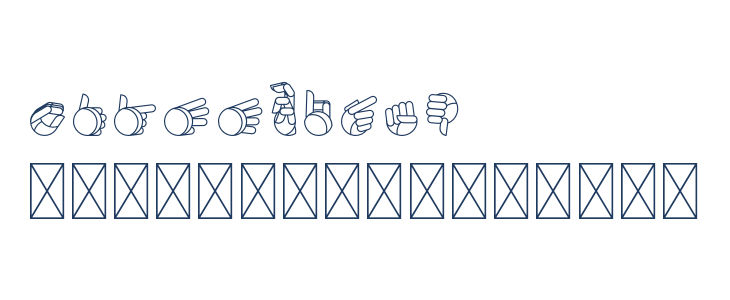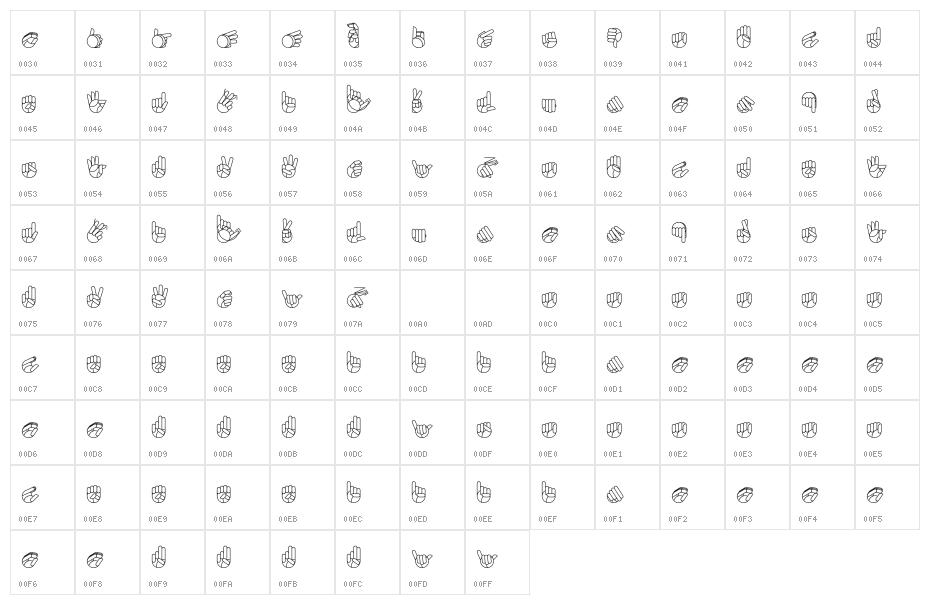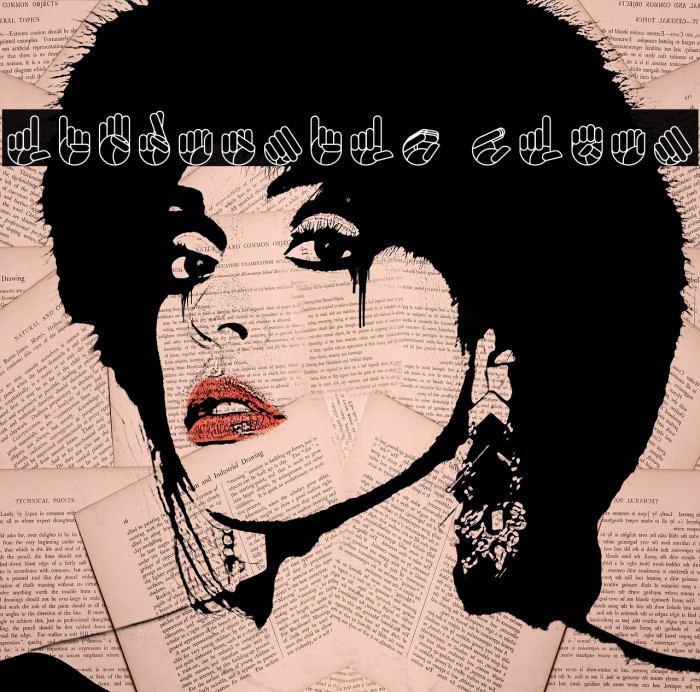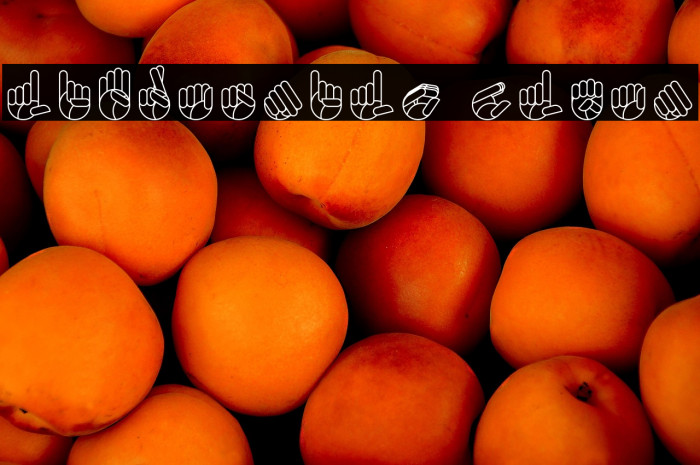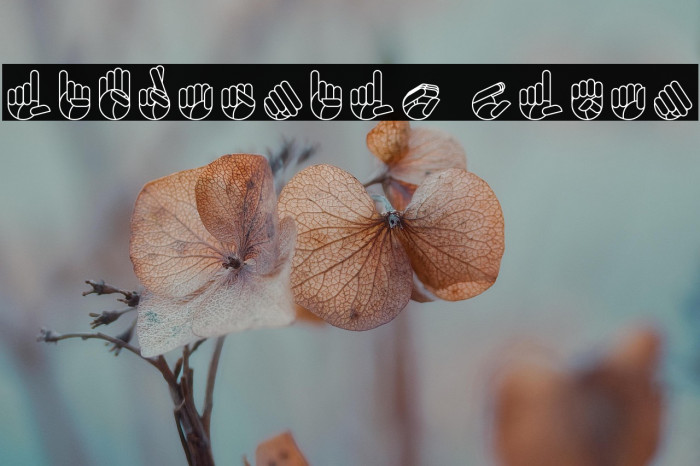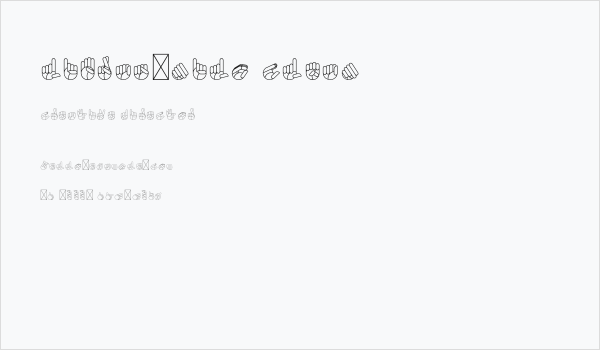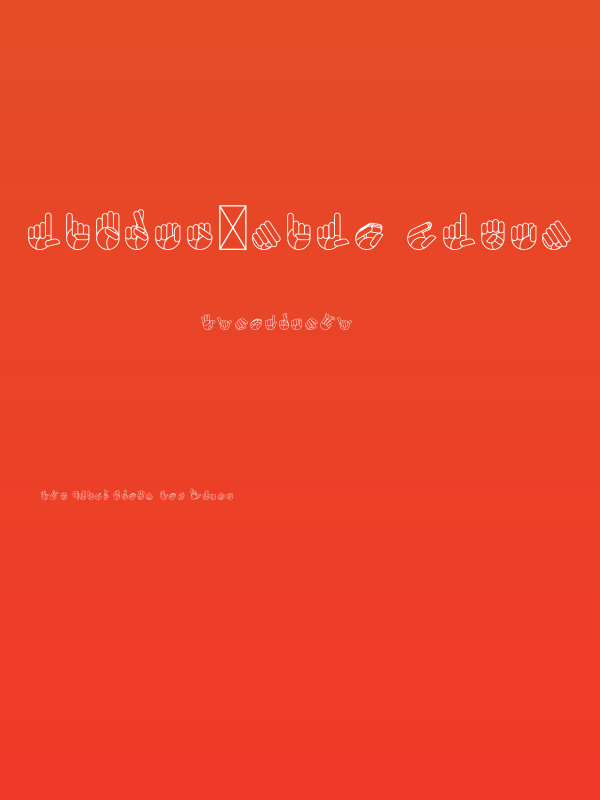
Libras-nilo Clean Font
Libras-nilo Clean Description
This image features a series of hand gestures representing letters and numbers, resembling a sign language alphabet. Each character is depicted with a clear, bold outline, emphasizing the shape and position of the fingers. The style is simplistic yet effective, focusing on clarity and ease of recognition. The characters are evenly spaced, maintaining a consistent visual rhythm across the rows. This set does not include traditional typographic elements but instead uses hand signs to convey information, making it unique and specialized for educational or communicative purposes.
| Use Case | Educational materials, Communication aids |
| Proposed Projects | This set is ideal for educational materials on sign language, communication aids for the hearing impaired, or creative projects that incorporate sign language symbols. |